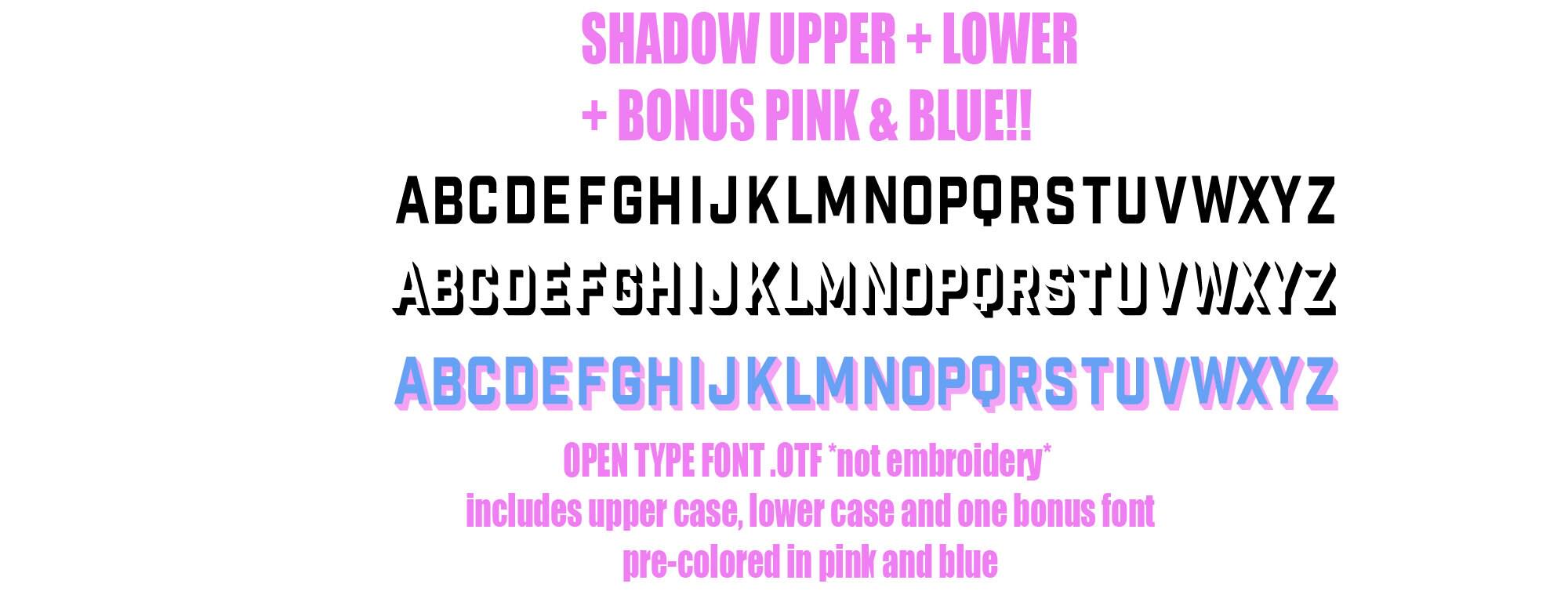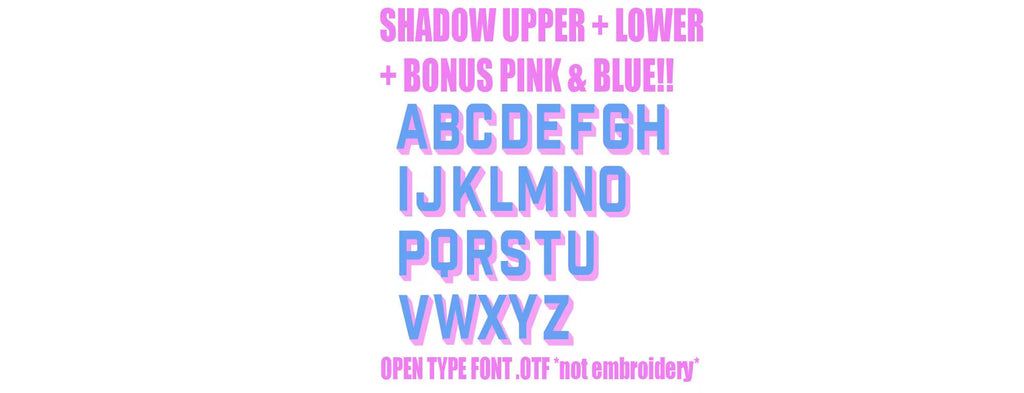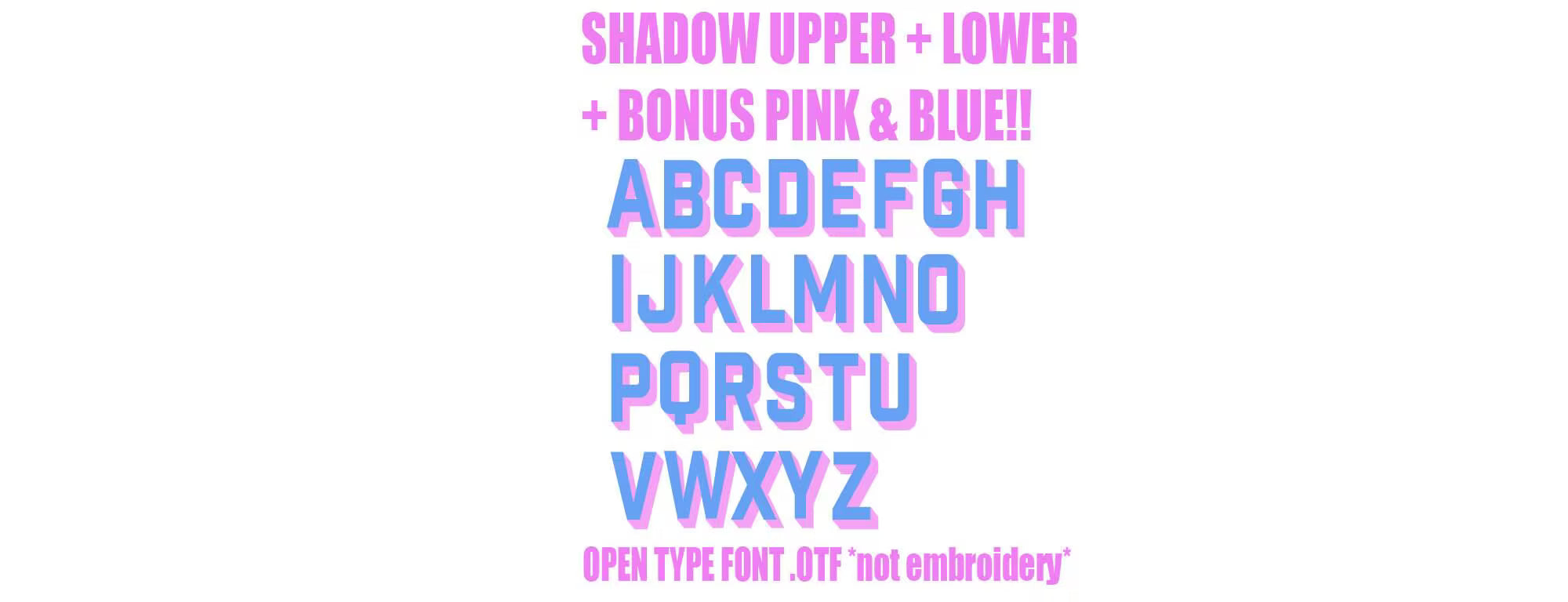
Shadow Font .OTF Bundle + Bonus 2 Tone Font
This font bundle includes a bonus that types out automatically in pink and blue
Use Upper Case and Lower Case in order to develop shadow and choose colors. Use all uppercase for font that types out in pink and blue.